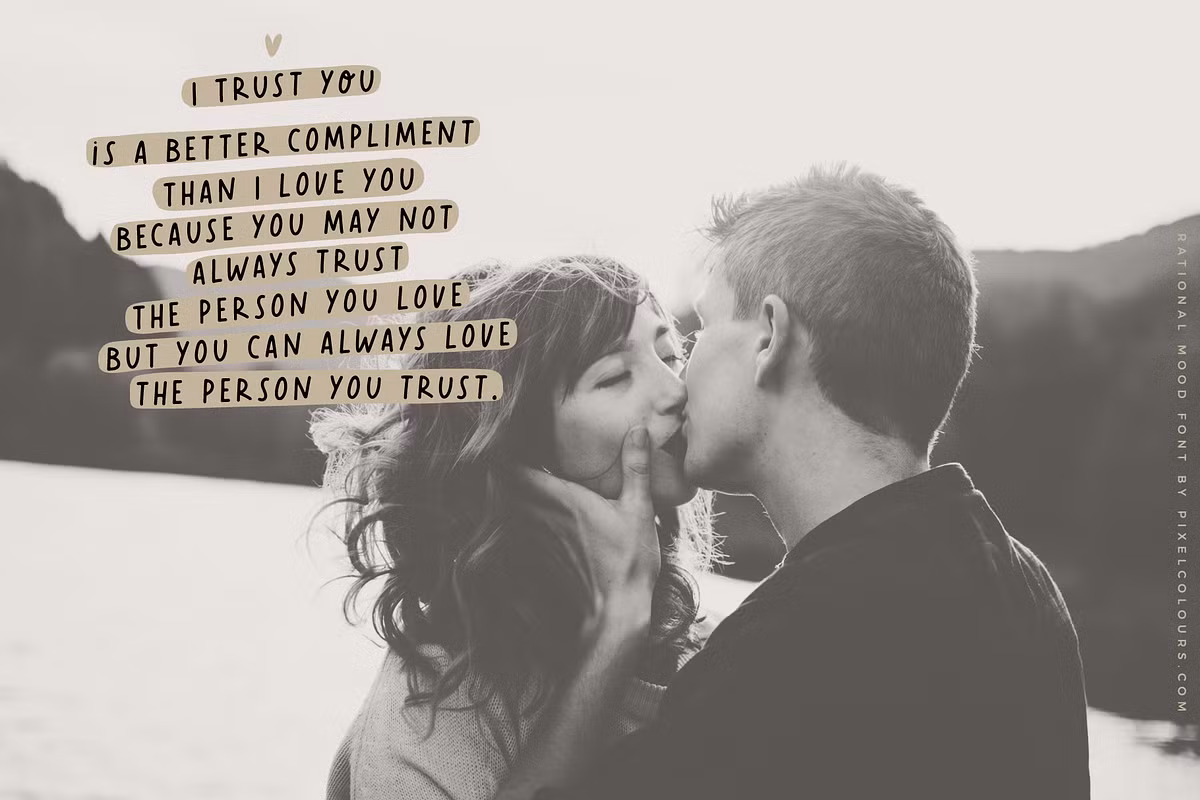
Script Font Rational Mood
Introducing Rational Mood Font: A Handwriting Trio
The Rational Mood Font is really nice for making your designs look special. It’s a set of three fonts: one for uppercase letters, one that’s like handwriting, and some extra pictures you can use to make your designs more interesting. This font set is great for making quotes that people will love, or posts that will stand out on social media sites like Pinterest and Instagram. The font has a fun and stylish look that makes it easy to add your own personal touch to your projects. You can use it to make your designs look more personal and unique, which is really cool.
Sample design using Rational Mood Font
A creative design showcasing the Rational Mood Font.
Design Style: A Blend of Playfulness and Elegance
The Rational Mood Font embodies a design style that marries playfulness with elegance. The uppercase font has a bold and confident presence, perfect for headings and titles that need to stand out. In contrast, the Rational Mood Script offers a more fluid and whimsical appearance, making it suitable for quotes, invitations, or any design that requires a personal touch. This mix helps you make a consistent look across different platforms. You can use it to create social media posts, cards, or branding stuff, and the Rational Mood Font will give your designs a nice, classy feel.
The Rational Mood Font is really special because it has a huge collection of characters. You get all the big letters from A to Z, and the script font has both big and small letters, so you can say what you want to say in lots of different ways. Plus, it’s not just letters – you also get numbers and punctuation marks, which means you can make all sorts of designs without anything getting in the way. This font is super versatile, and that’s what makes it so great. Whether you’re working on a big project or just want to add some flair to your writing, the Rational Mood Font has got you covered. With all the different characters and symbols at your fingertips, you can let your creativity shine and make something truly amazing.
Use Cases: Versatility Across Creative Projects
The Rational Mood Font is perfect for a wide range of creative projects. Here are some use cases where this font trio can shine:
• Create amazing social media posts with the Rational Mood Script. This fun font is perfect for making quotes that really speak to your followers, and its playful vibe will get people interacting and sharing your content.
• Invitations and Greeting Cards: The combination of the uppercase and script fonts allows for elegant yet fun invitations for events like weddings, birthdays, or baby showers.
• To make your brand look great, use the same font, called Rational Mood, on everything like your logo, business cards, and ads. This will help people recognize your brand and make it look professional.
• Print Products: Utilize the font for designing posters, flyers, or any printed material that requires a touch of charm and style.